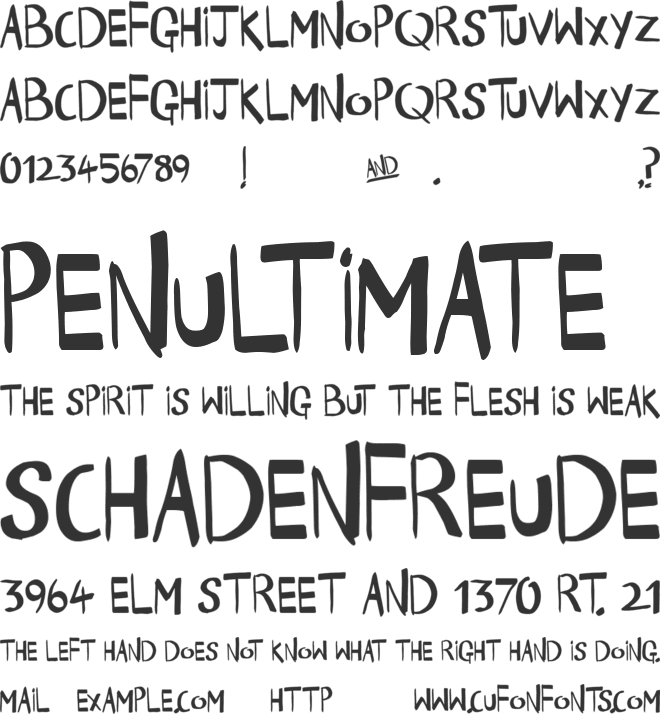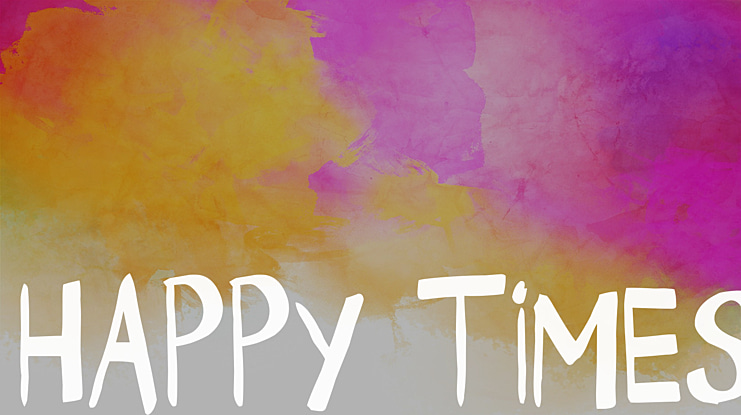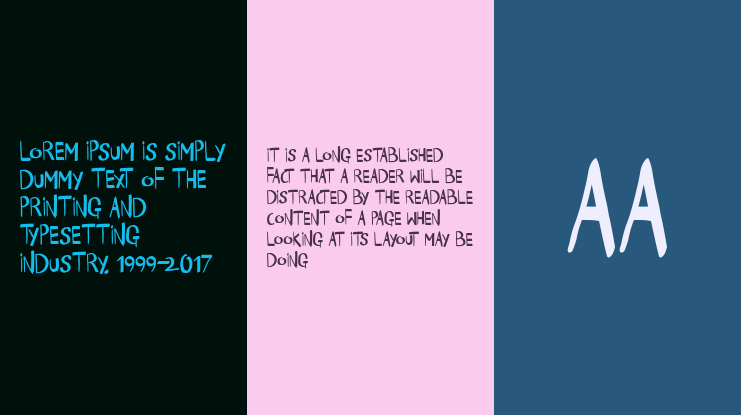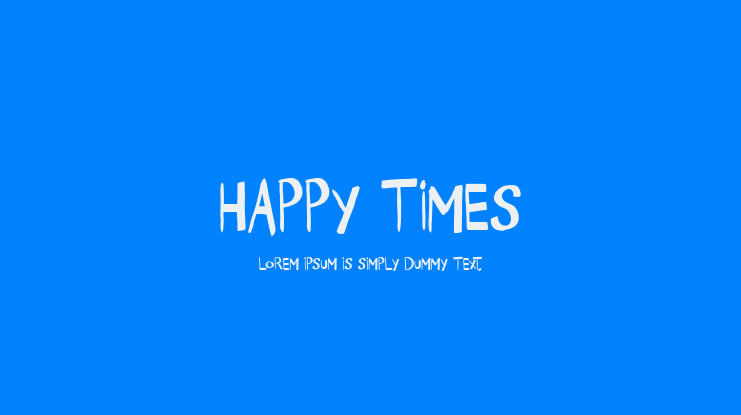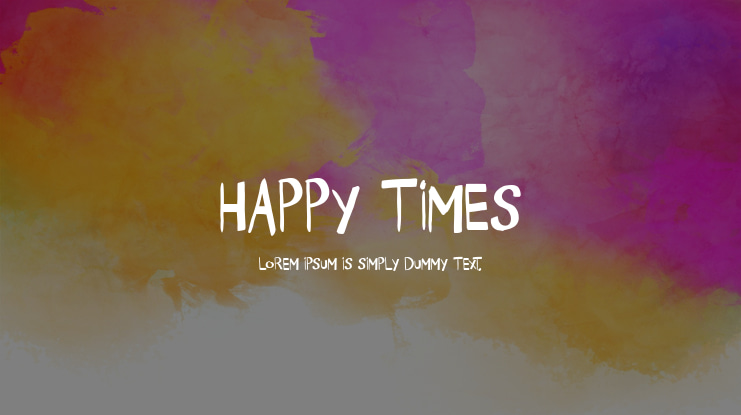
Happy Times Font
Happy Times is a font for celebrating, especially easter & birthdays. Its loving, comic-style typeface allows it to be used for cartoon projects as well as other off the wall projects. Happy Times also looks great on greeting cards and t-shirts!